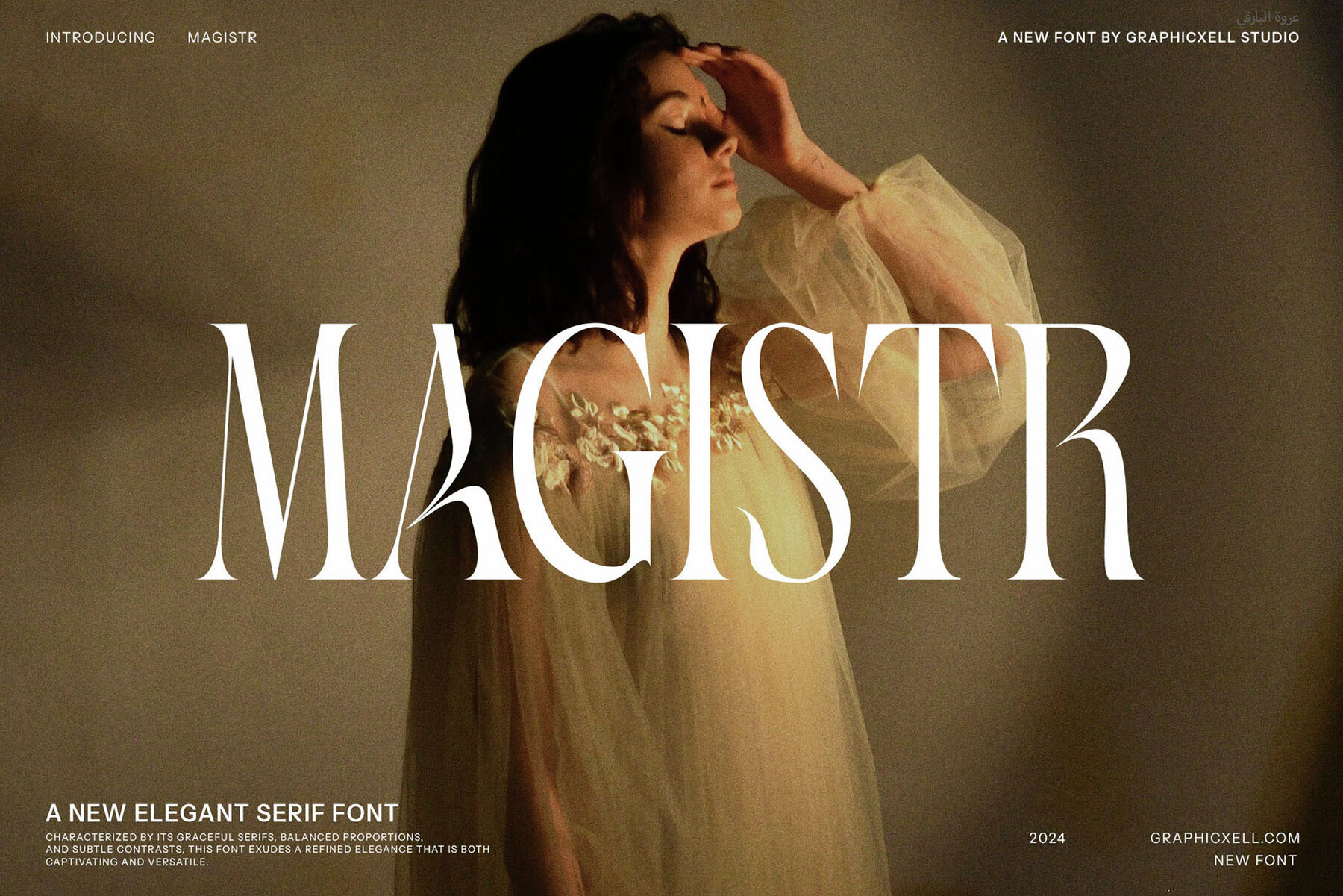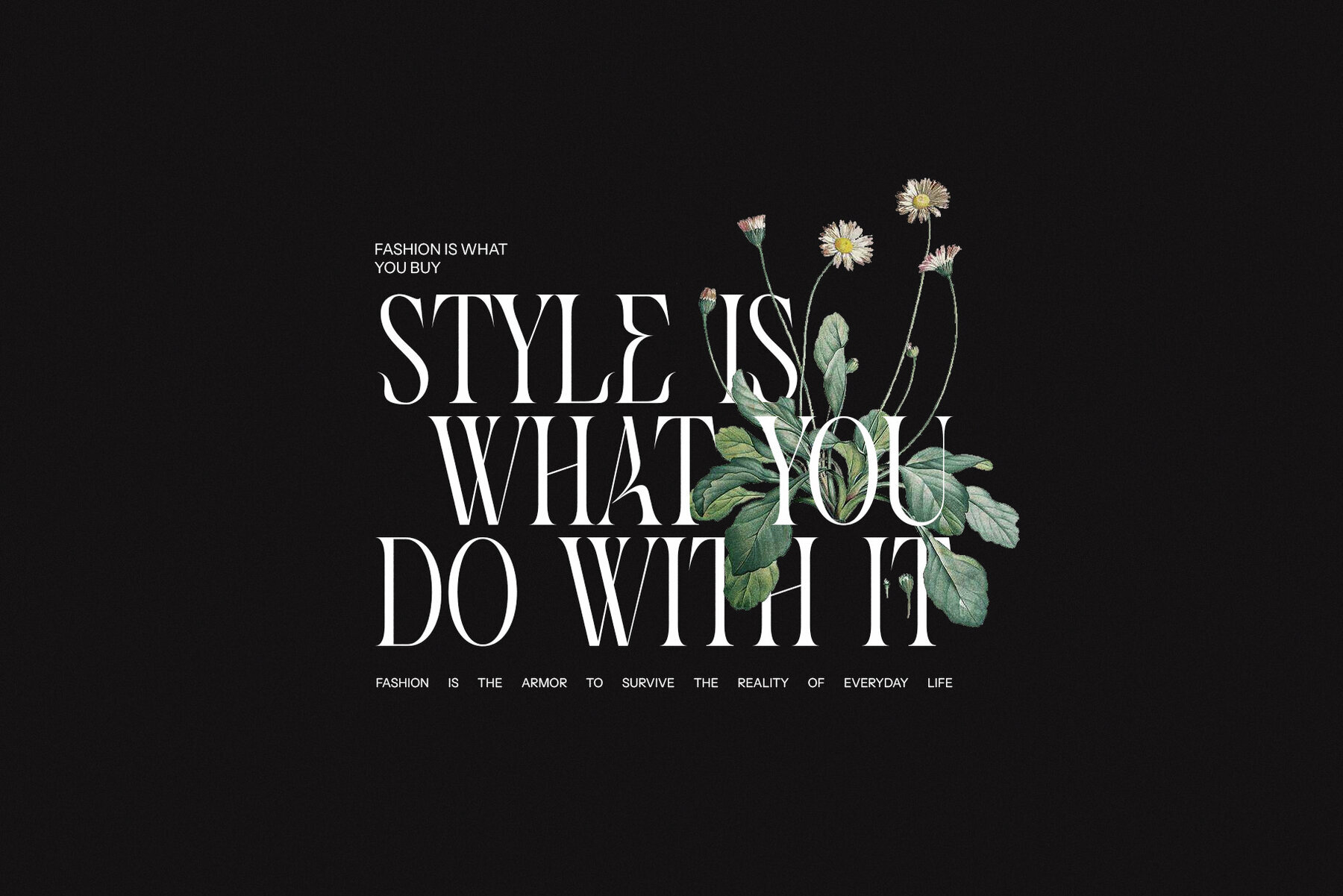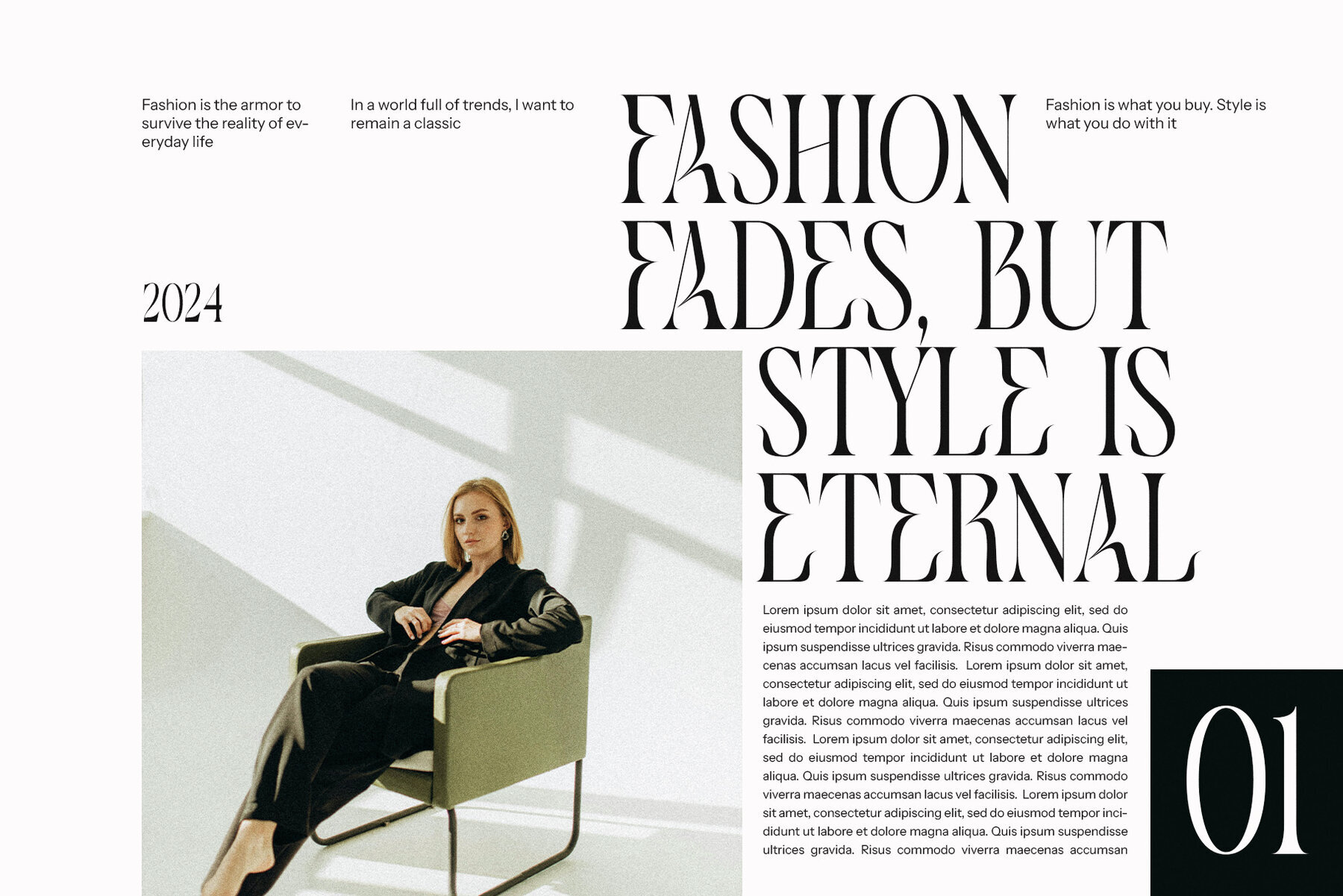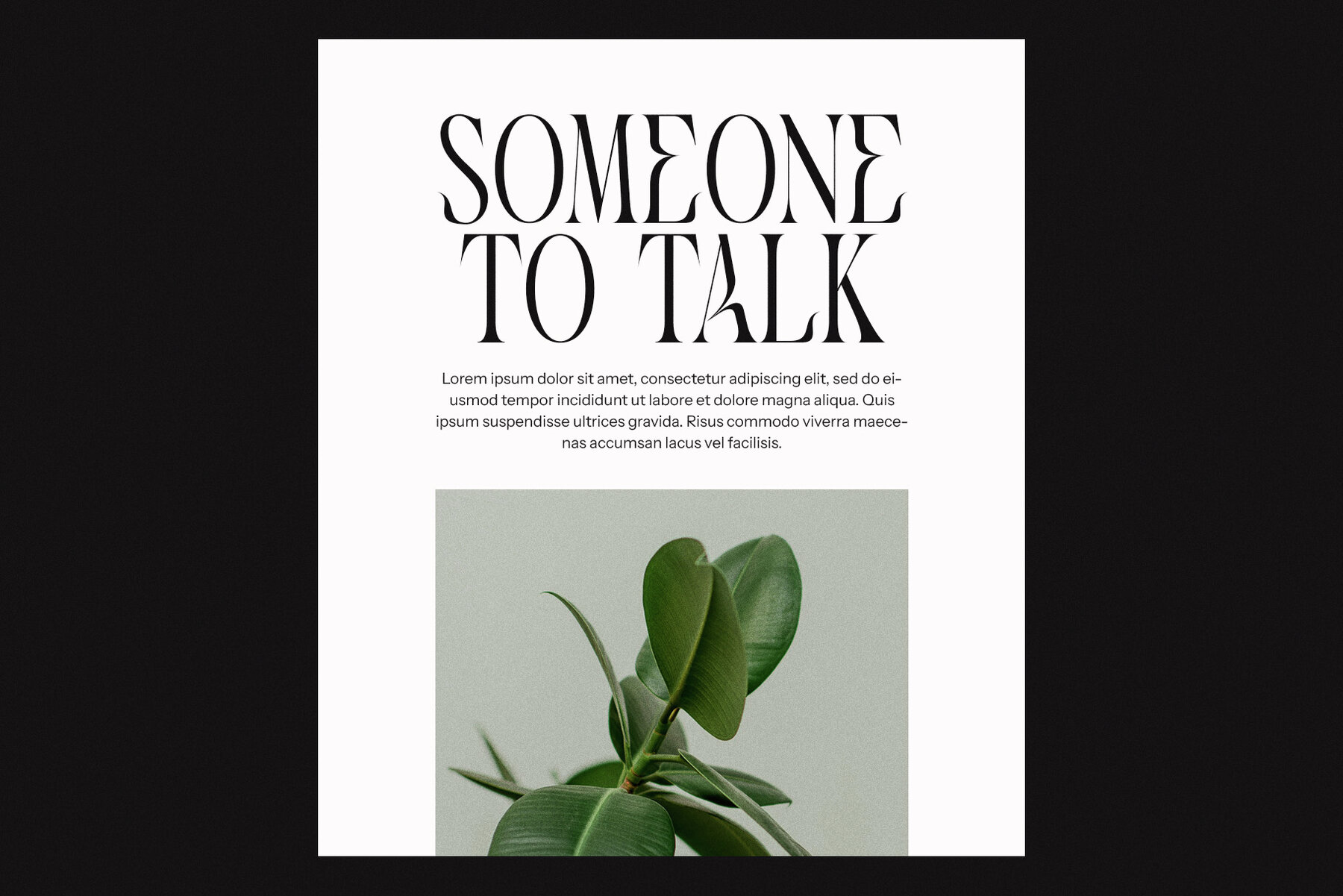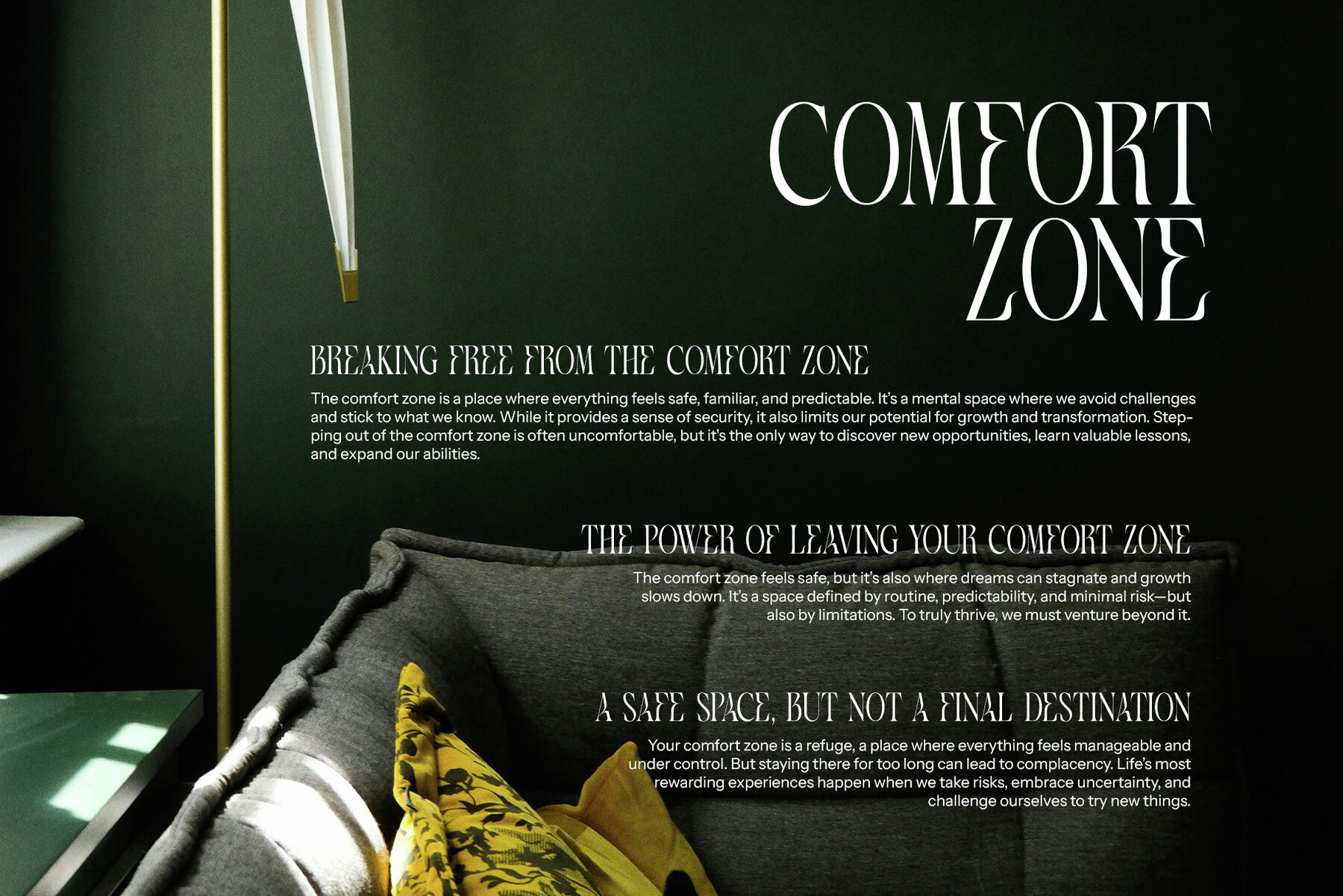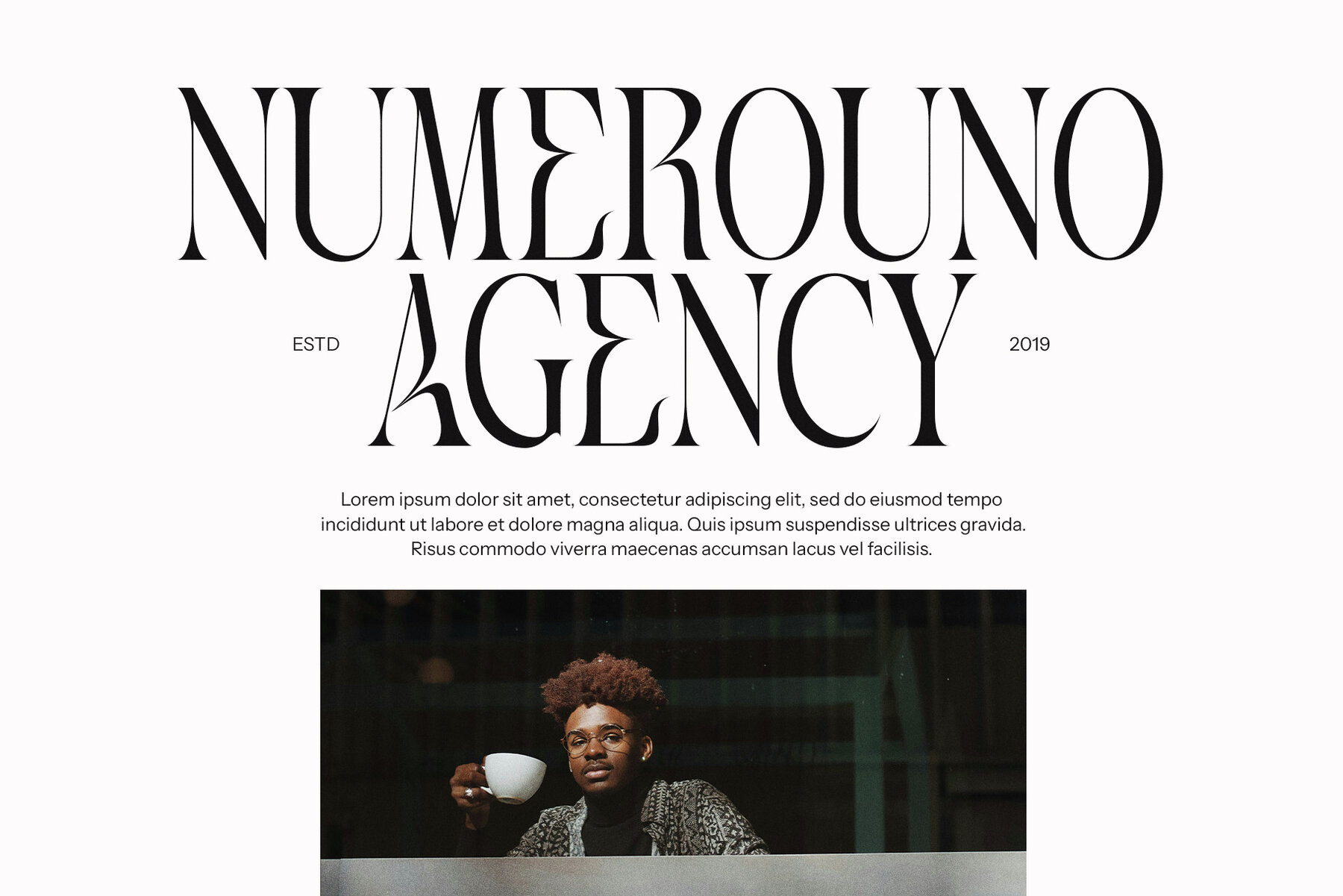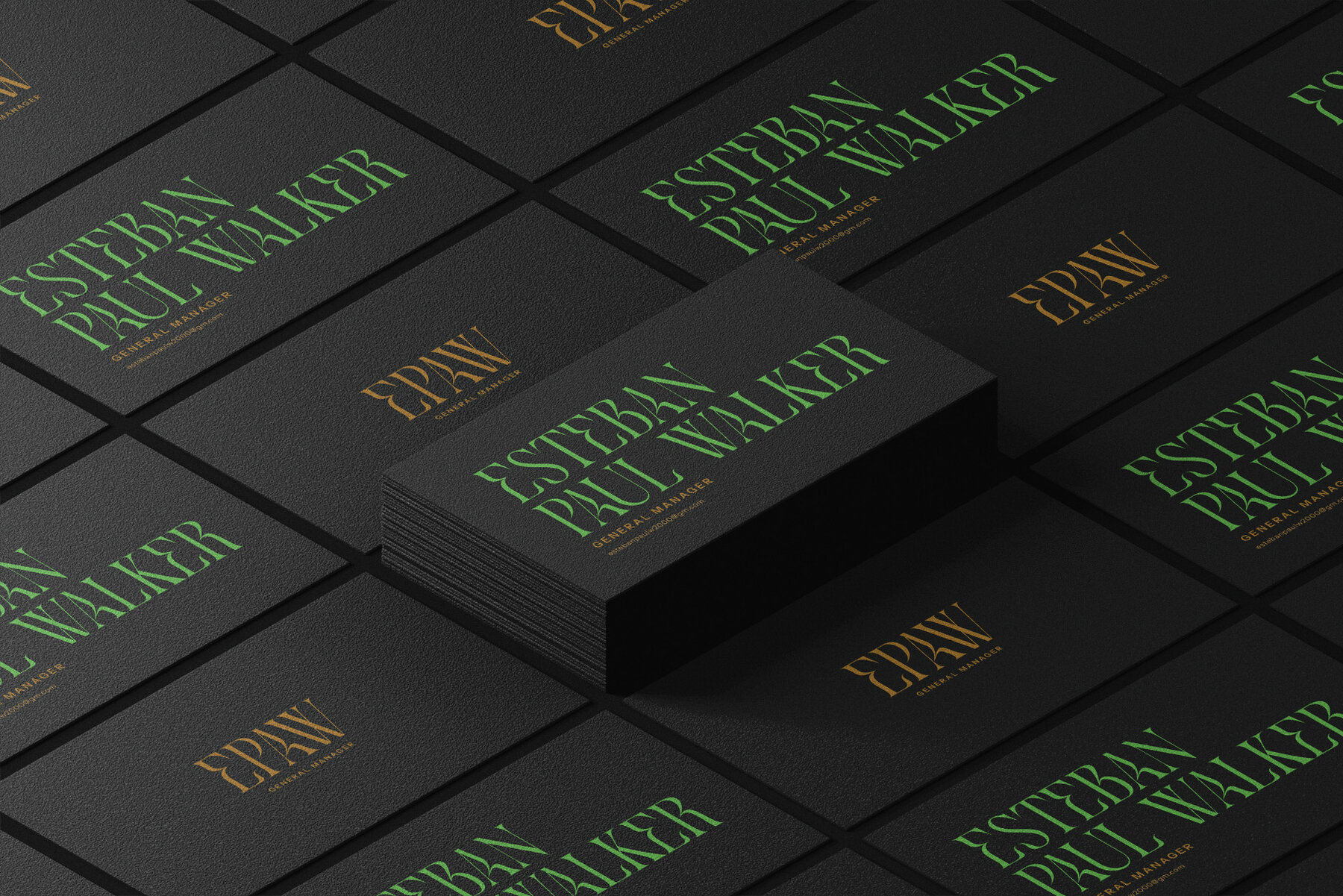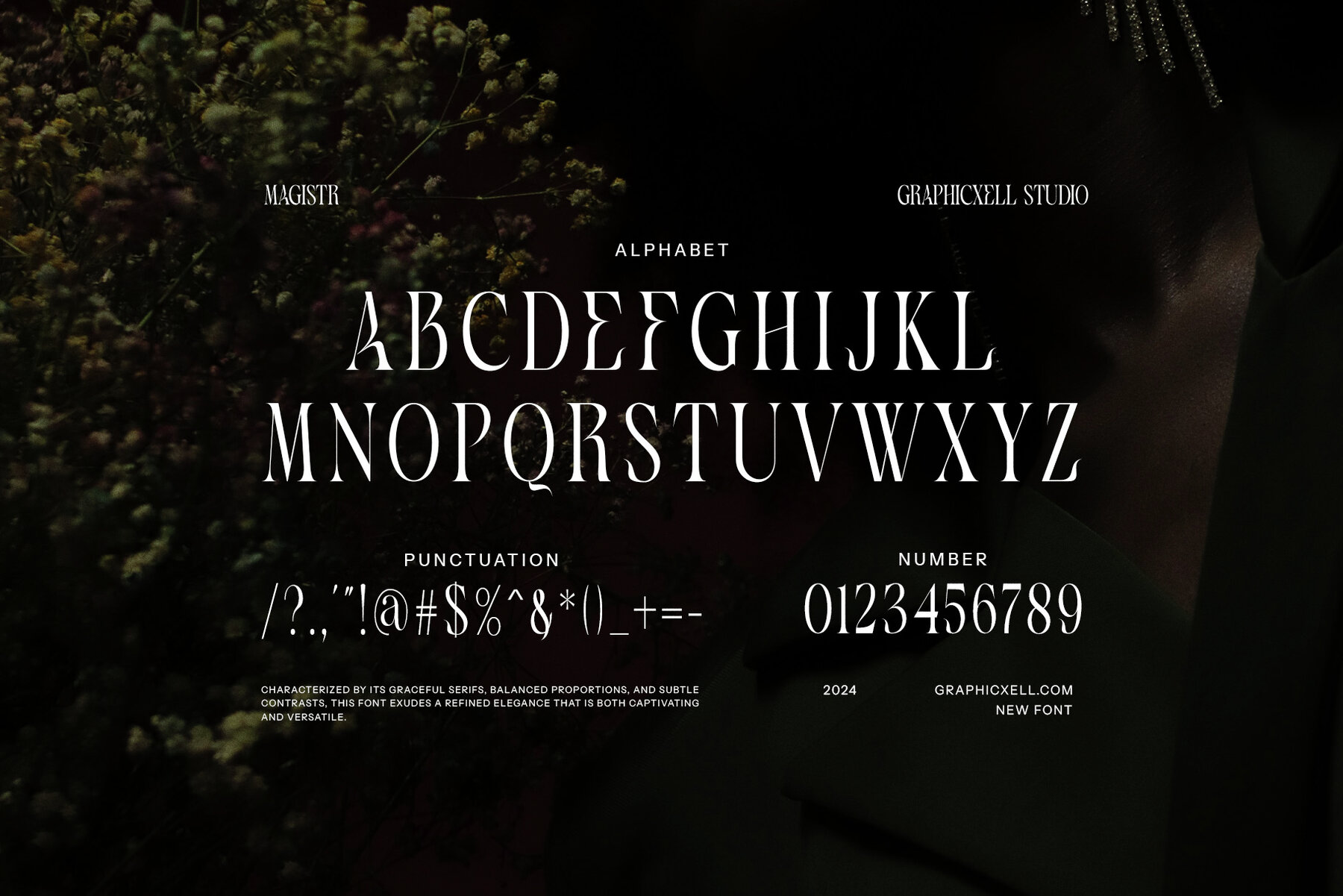
Magistr Font
Magistr
Discover the Magistr Unique Serif Font, a striking fusion of elegance and modernity, perfect for those aiming to make a vivid statement through typography. With its distinctive design and artistic flair, this font presents a unique blend of classic sophistication and contemporary edge, suitable for a multitude of design applications. The refined serifs and elegantly crafted characters of Magistr exude both movement and grace, making it a visually appealing choice whether in print or digital formats. It commands attention, drawing the eye and enhancing the aesthetic appeal of any project with its stylish curves and bold strokes.
Tailored for a variety of design contexts, Magistr excels in high-end branding, impactful logos, and editorial layouts. Its balanced elegance shines both in headlines and body text, offering clarity and sophistication ideal for luxury packaging, upscale invitations, and chic magazine spreads. In the competitive realm of branding, Magistr offers originality, resonating with sophistication, and helping brands establish a memorable market presence. Its timeless yet modern design adapts beautifully over different industries and contexts, making it a valuable asset for designers seeking a versatile typeface that maintains its appeal over time. Embrace Magistr to enhance your visual identity with a powerful typographic language.